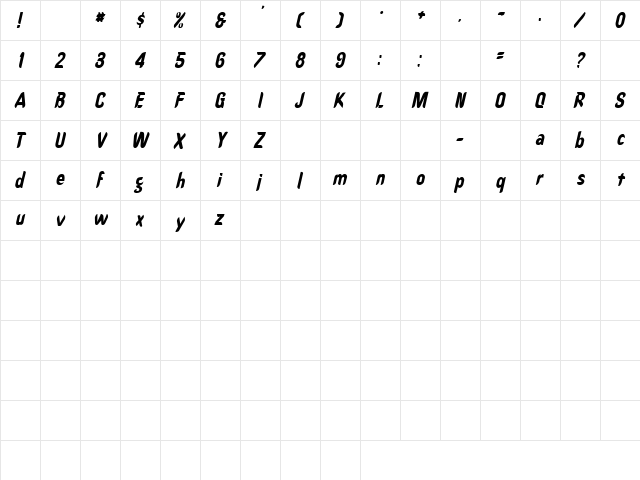
Core 11 Italic
Design Context for Core 11 Typeface
Core 11 offers clean, dependable letterforms without strong stylistic allegiance, making it a practical choice for designers who need flexibility. The dynamic lean of this cut emphasises speed and emphasis in any layout.
Pro Tip: Use Core 11 for emphasis, pull quotes, and subheadings where its slanted energy can add rhythm to the layout.